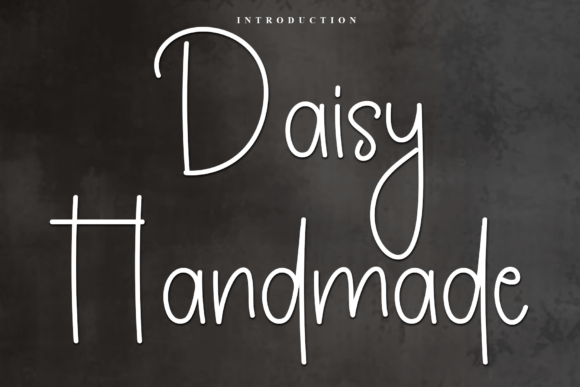
The Whimsical Charm of Handmade Typography
Have you ever been lost in a moment of pure creative bliss, surrounded by scribbled notes and half-finished sketches? The lines blur between reality and imagination, and your heart beats faster with excitement. For designers, this feeling is the ultimate goal – to create something that brings joy and wonder to the world. And that’s exactly what the Daisy Handmade Font is designed to do.
This airy, slender script font is a masterclass in whimsical charm and organic movement. With its incredibly tall ascenders and light, monolinear weight, it offers a refreshing and delicate aesthetic that’s perfect for florist branding, “light and bright” lifestyle photography overlays, and artisanal stationery projects. As a designer, the Daisy Handmade Font is a valuable addition to your toolkit, offering a unique and captivating way to bring your creative vision to life.
- Unique Characteristics: Handmade, cursive script with a touch of whimsy and elegance, perfect for creating a personal and unique visual identity
Daisy Handmade Font Review
I recently had the chance to work with the “Daisy Handmade Font” and I must say, it’s a lovely addition to any design project. Here’s what I like and dislike about it:
- Unique Character: The font has a charming, handwritten feel that’s perfect for projects that need a personal touch.
- High-Quality Graphics: The font is well-designed and has clear, crisp lines that make it easy to read.
- Great for Titles: The font is perfect for titles and headings, adding a touch of elegance to any design.
- Not Suitable for Body Text: While the font is great for titles, it’s not ideal for body text due to its inconsistent spacing and letter size.
- May Require Adjustments: Depending on the project, you may need to adjust the font size or spacing to get the desired look.
The “Daisy Handmade Font” is a beautiful addition to any design project, but it’s essential to use it judiciously. It’s perfect for titles, headings, and other decorative elements, but may not be the best choice for body text or projects that require extensive text editing.
Tips for Getting the Most Out of Daisy Handmade Font
For best results, use the font in conjunction with a clean and simple design. Avoid overusing the font, as it can become overwhelming. Experiment with different font sizes and colors to create visual interest.
Daisy Handmade Font is perfect for:
- Handmade craft and DIY projects.
- Quirky and playful branding.
Ostrich Sans Font is a modern sans-serif font that is ideal for use in titles, headings, and short paragraphs where a touch of sophistication is required. It has a more clean and minimalistic look compared to Daisy Handmade Font, which is more ornate and decorative.